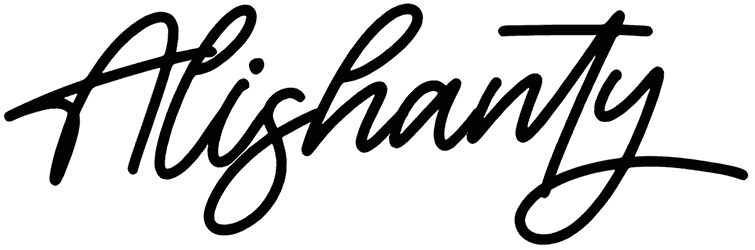
Alishanty Font
Would you like casual manual texts for your designs? So don’t pass this handwritten font with a natural face called Alishanty. With two styles and full characters, this quote font is a fitting item with lots of designs and subjects. Place Alishanty on your following designs, such as postcards, cosmetic ads, flyers, or the like, and give them a down-to-earth mood.